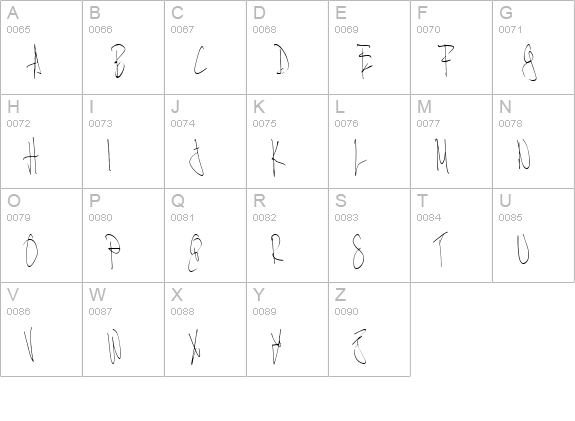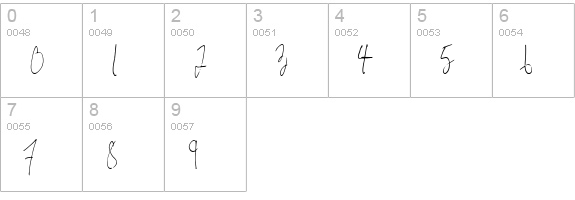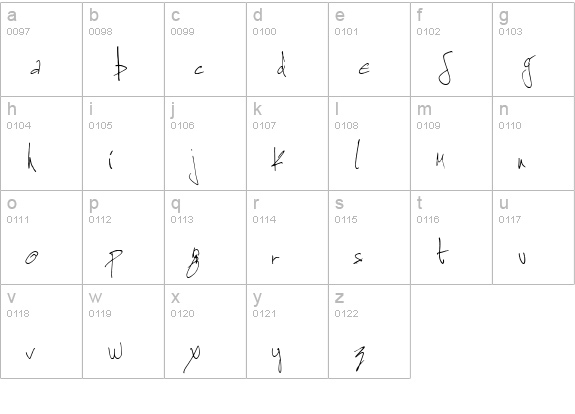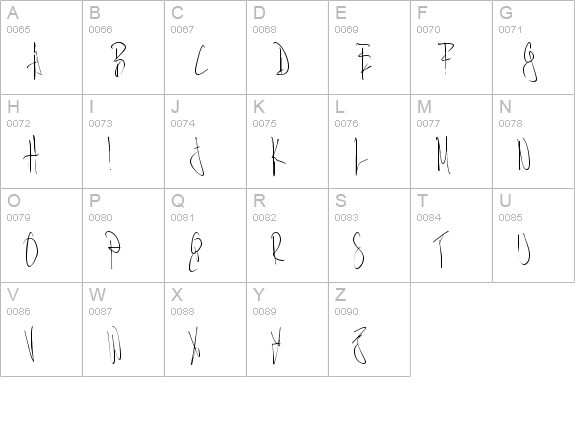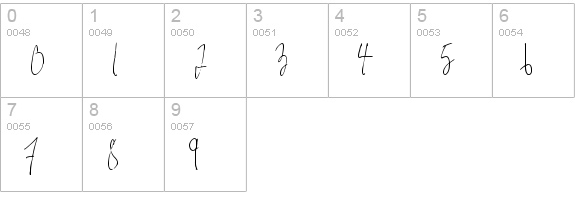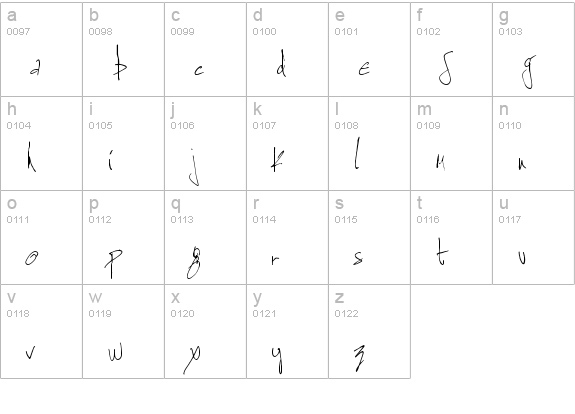
Detailles Font Details
Detailles font is a stunning typeface that exudes elegance and sophistication. With its intricate details and graceful curves, this font is perfect for adding a touch of refinement to any design project. Whether you're creating invitations, logos, or branding materials, Detailles font will elevate your work to the next level. The best part? Detailles font is completely free to download at FontsMarket.com. You can easily access this beautiful font and start using it in your projects today. Don't miss out on the opportunity to enhance your designs with the timeless charm of Detailles font. Download it now and let your creativity shine!